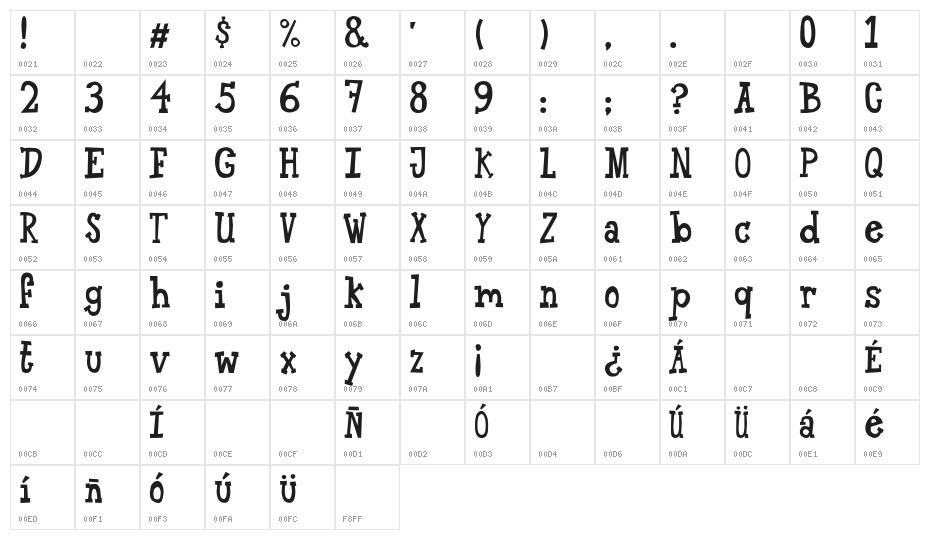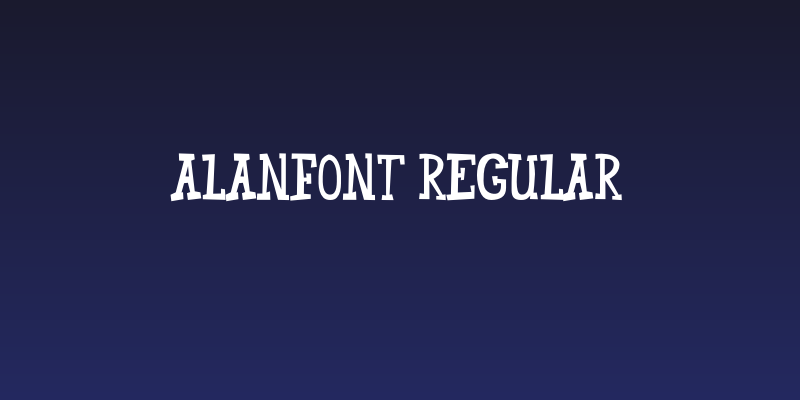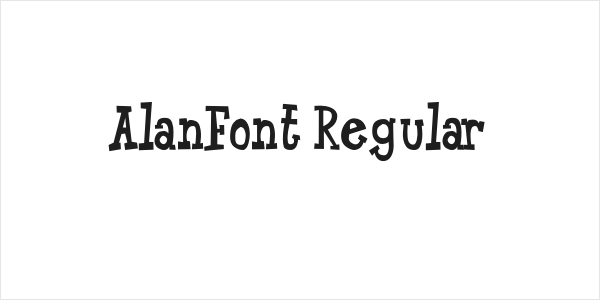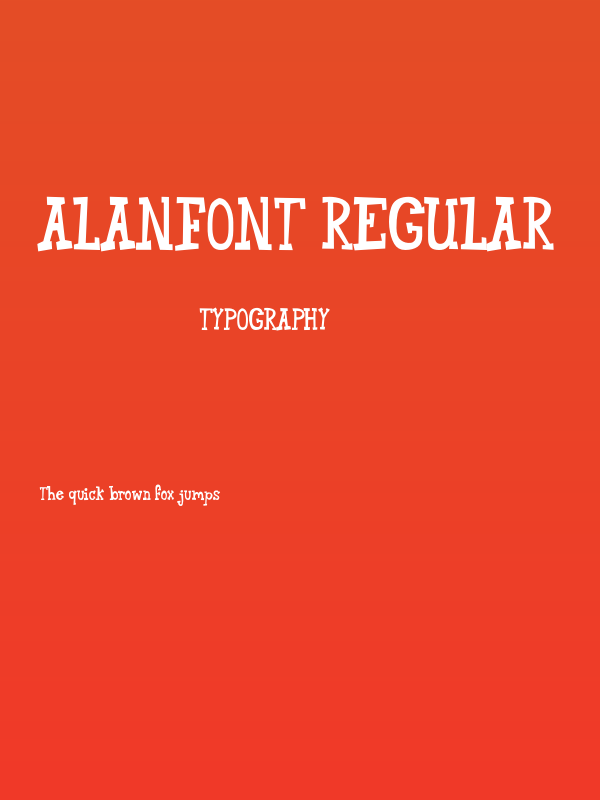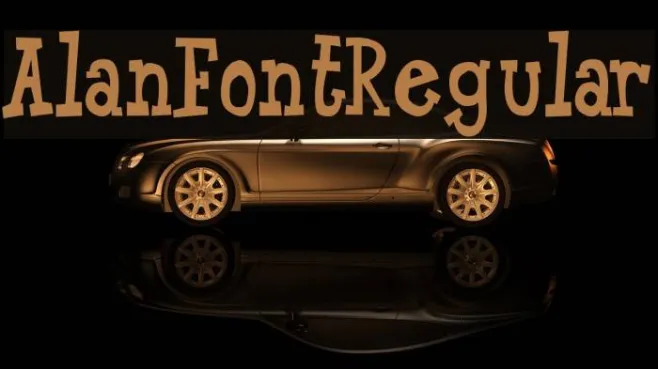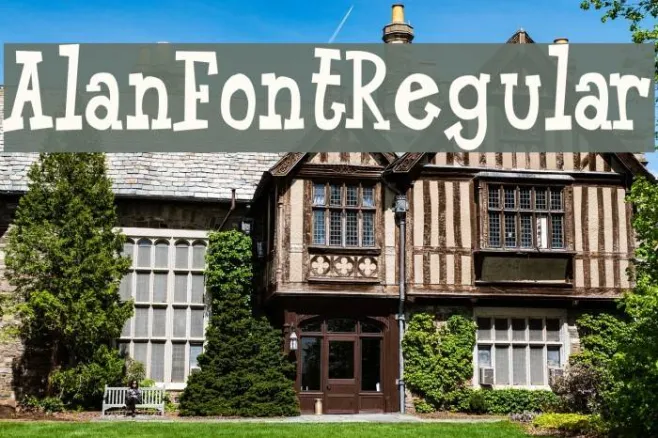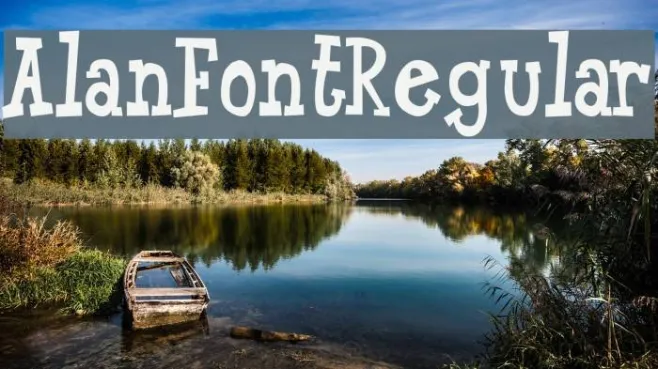
AlanFont-Regular Font
AlanFont-Regular Description
This font features a playful and whimsical design, characterized by its bold and slightly irregular strokes. The letters have a hand-drawn appearance, with varying line thickness that adds a dynamic and lively feel. The uppercase letters are bold and prominent, while the lowercase letters maintain a consistent style with a touch of quirkiness. Numbers and special characters follow the same playful aesthetic, making this font suitable for creative and informal projects. The overall style is decorative, with a unique charm that stands out.
| Proposed Projects | Ideal for children's books, playful branding, greeting cards, and creative posters. |